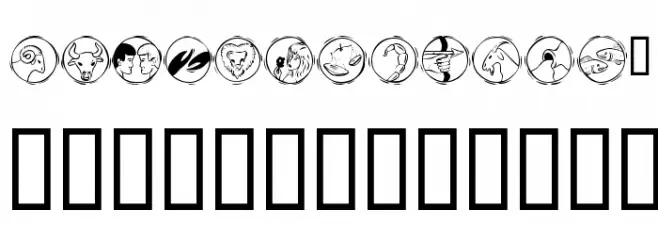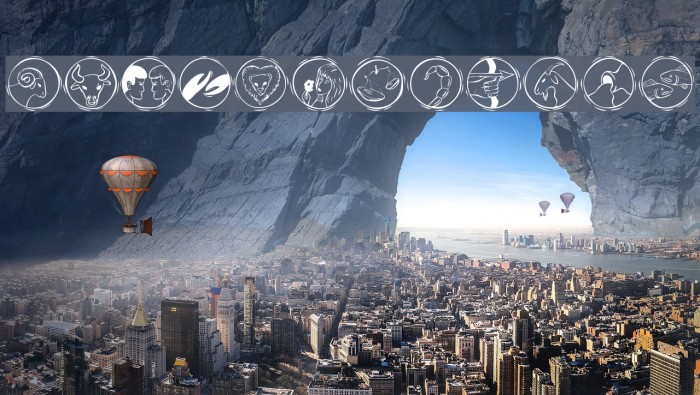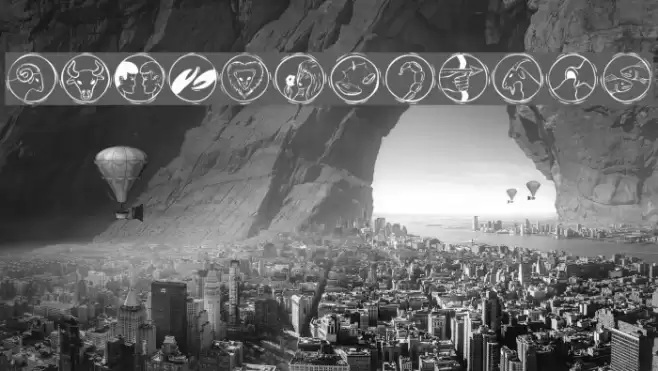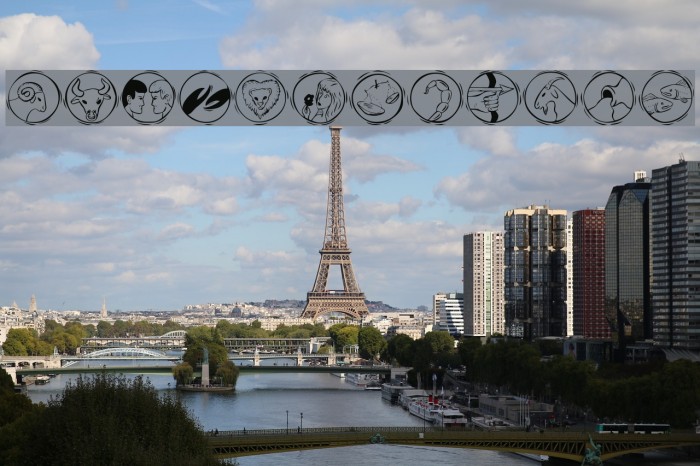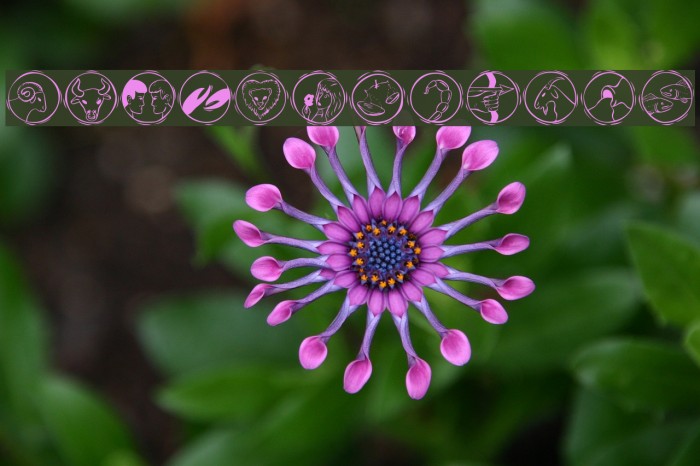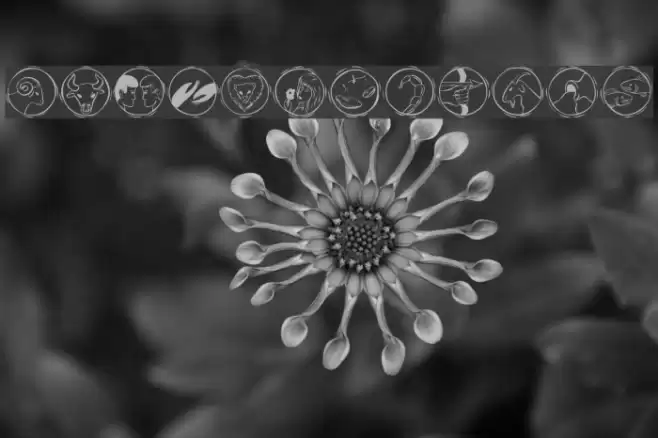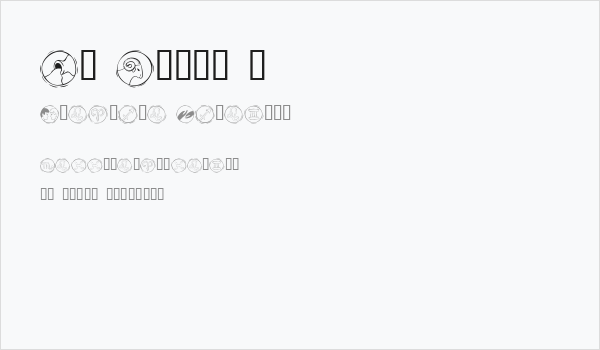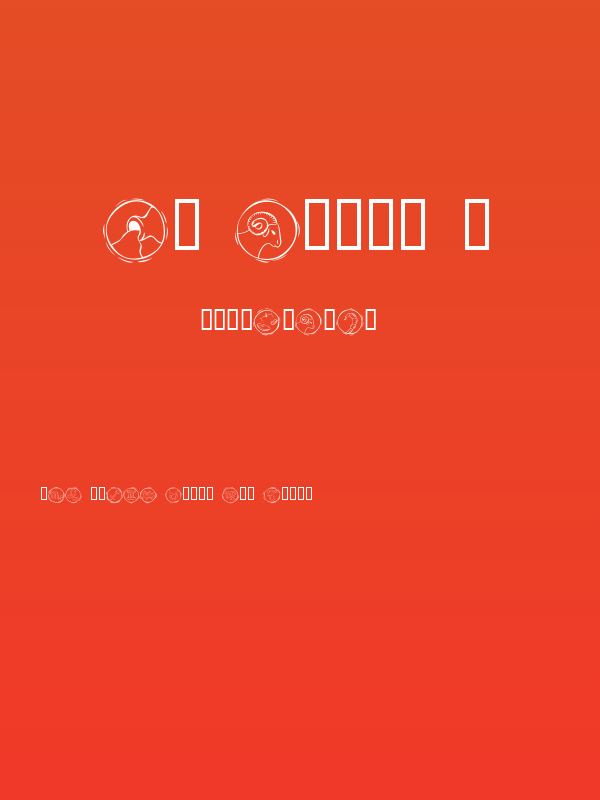
KR Astro 2 Font
KR Astro 2 Description
This font is a decorative collection featuring zodiac symbols encapsulated within circular designs. Each character is represented by a unique astrological sign, intricately illustrated to capture the essence of its symbolism. The designs are bold and distinct, with each symbol encased in a circle, giving a cohesive and uniform appearance. The style is highly decorative, making it suitable for projects that require a mystical or celestial theme. The font does not include traditional alphanumeric characters, focusing solely on astrological imagery.
| Use Case | Logos, Decorative elements, Themed designs |
| Proposed Projects | Ideal for astrology-themed projects, horoscopes, mystical event invitations, or decorative elements in publications related to celestial topics. |